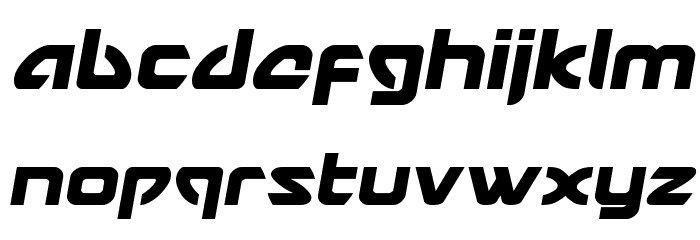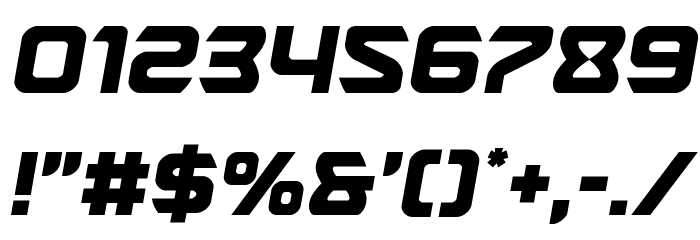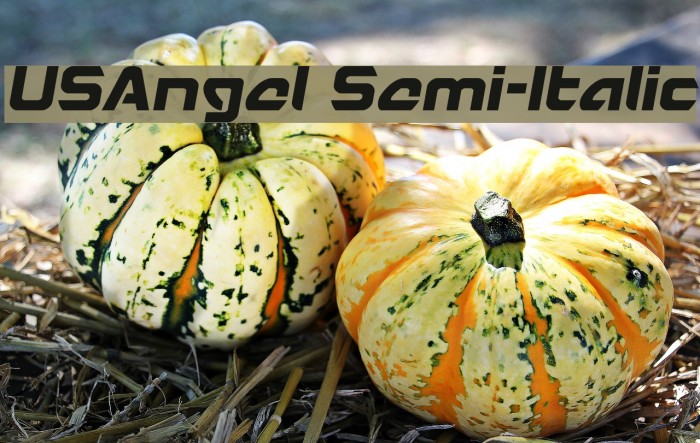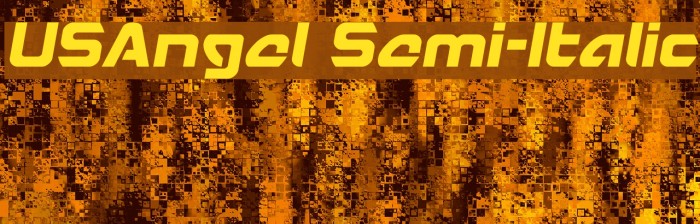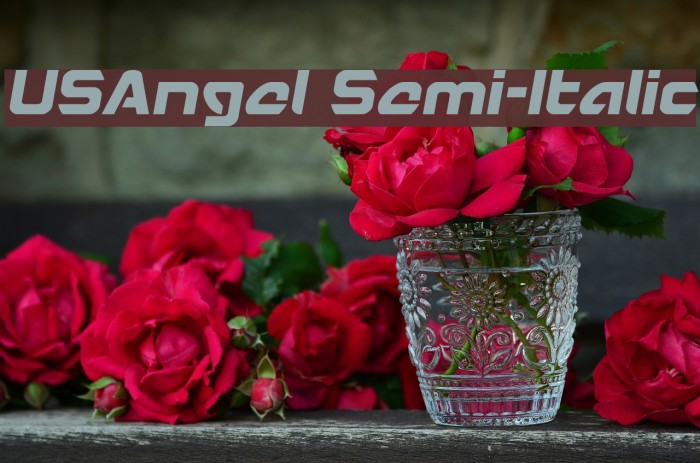
USAngel Semi-Italic Font
This font exhibits a dynamic and modern style with a semi-italic slant, giving it a sense of motion and energy. The characters are bold and slightly condensed, with a futuristic aesthetic. The uppercase and lowercase letters maintain a consistent style, with sharp angles and clean lines. Numbers and special characters follow the same design principles, ensuring uniformity across all glyphs. The font's strong presence makes it suitable for attention-grabbing applications.
A bold, semi-italic font with a modern, dynamic style.
- Proposed Projects: Ideal for sports branding, tech-related designs, video game titles, and dynamic advertising campaigns.
- Overall Style: Modern, Dynamic
- Use Case: Headlines, Logos, Branding